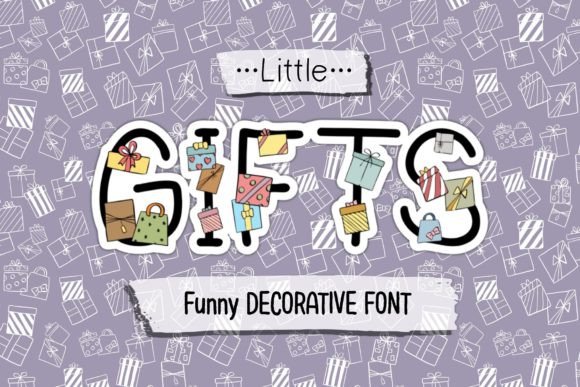
Introducing Little Gifts Font, a playful and whimsical decorative font that will infuse your designs with a touch of magic. Crafted by the skilled hands at 18CC FONTs, this font is a true gem, designed to bring joy and creativity to your projects. Whether you're a seasoned designer or just starting, Little Gifts Font is the perfect choice for adding a unique and eye-catching touch to your work.
Step into a world of endless possibilities with Little Gifts. Let your imagination soar as you create logos that pop, branding that captivates, and social media posts that sparkle. This font is the perfect companion for your crafty DIY projects, adding a touch of personality and charm to every creation.
With Little Gifts Font, you can effortlessly transform your designs into masterpieces. Its playful nature will add a touch of whimsy to your logos, making them unforgettable and sure to leave a lasting impression. Create branding that resonates with your audience, capturing their attention and leaving them eager for more. Elevate your social media presence with posts that stand out from the crowd, adorned with the delightful charm of Little Gifts Font.
Unleash your creativity and embark on a journey of design exploration with Little Gifts Font. Dive into a world where imagination knows no bounds, and where your projects come to life with a touch of magic.